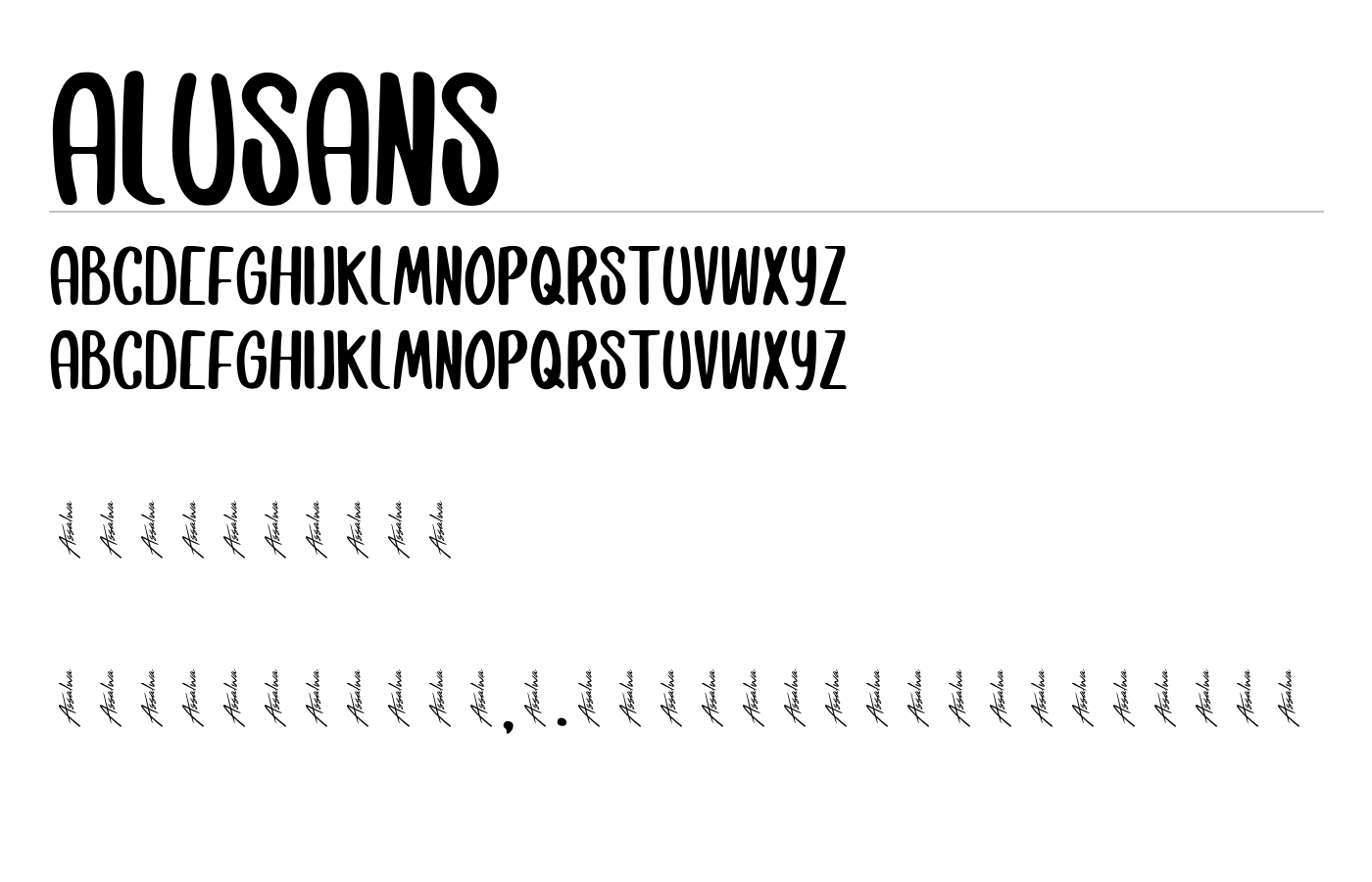
Alusans is a playful sans serif font with a tall, narrow structure and a hand-drawn feel. Its rounded strokes and uneven terminals give it a friendly, casual personality, perfect for creative projects that want to convey warmth and approachability. This font works well for headlines, posters, and branding where a distinct, informal vibe is desired.
Alusans Font
About Alusans Font